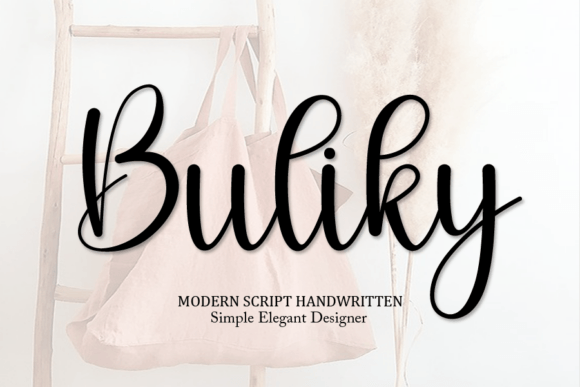
The Buliky Font: A Timeless Choice for Creative Projects
A Personal Review of Buliky Font
As a designer, I appreciate fonts that are versatile, easy to read, and visually appealing. The Buliky font checks all these boxes and more. Here’s what I love about it:
- ✨ Classic and timeless look: Buliky has a traditional feel that works well for logotypes, headlines, and corporate identities.
- ✅ Simple and elegant: The font’s clean lines and simple design make it perfect for a wide range of creative projects, from apparel to posters and magazines.
- 🌈 Versatile: Buliky can be used for various design projects, including branding, advertising, and even digital media like YouTube and Instagram.
While Buliky is an excellent font, it’s not without its quirks. Here are a few things to keep in mind:
- 🤔 Limited font weights: Buliky is available in a limited number of font weights, which might not be ideal for projects that require a lot of variation.
- ⚠️ Glyph limitations: While Buliky has a wide range of glyphs, it might not have every special character or symbol you need.
The Story Behind Buliky Font
The Buliky font was created by a talented designer who wanted to craft a simple, yet elegant handwritten script. Inspired by classic typography, the designer aimed to create a font that would be versatile, easy to read, and visually appealing. With its clean lines and simple design, Buliky has become a popular choice for designers and crafters around the world.
| Author | Abadi letter |
| What is the Buliky font best used for? | The Buliky font is best used for logotypes, headlines, corporate identities, branding, advertising, and creative projects like posters, magazines, and comics. |
| Does Buliky support OpenType features? | Yes, Buliky supports OpenType features like glyphs and stylistic alternates, which can be used to add more creativity to your design. |